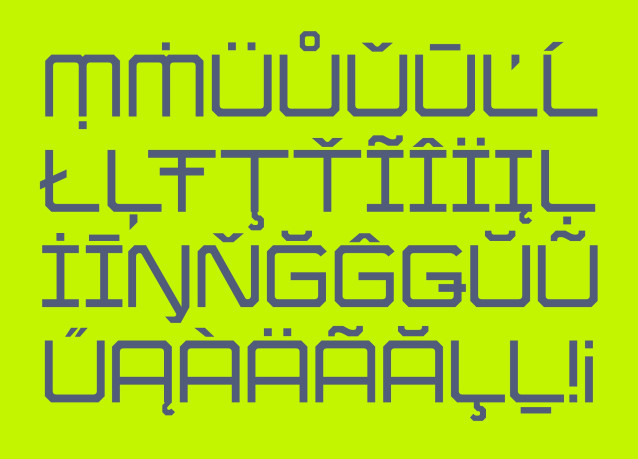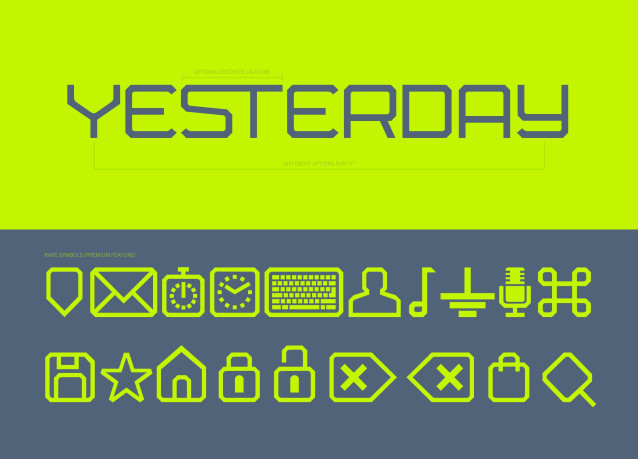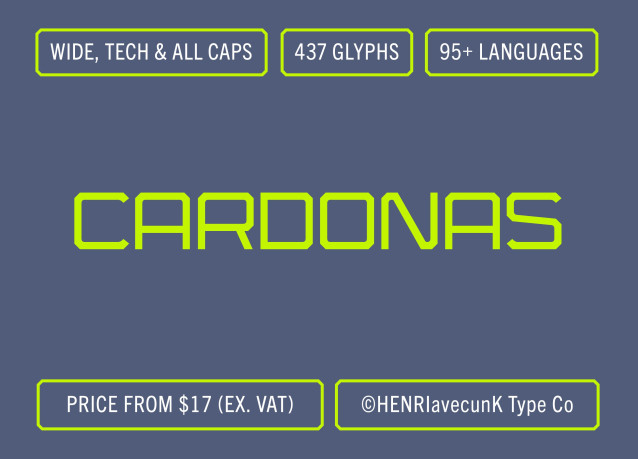
Cardonas is a soft-tech all-caps typeface designed to stand out. It combines a clean, modern aesthetic with a subtle warmth that makes it both distinctive and approachable.
Perfect for logos, social media and other contemporary branding, Cardonas supports a over 90+ languages based on the latin script, as well as basic Greek (for logos and signage), making it a good choice for international projects. The typeface includes 438 glyphs, featuring an extensive collection of useful symbols such as padlocks, shopping bag, stopwatch, house, floppy disk icon, and much more.
In short, Cardonas blends technical precision with a touch of human warmth, performing equally well in both digital and print environments. It’s simply built to make an impact.